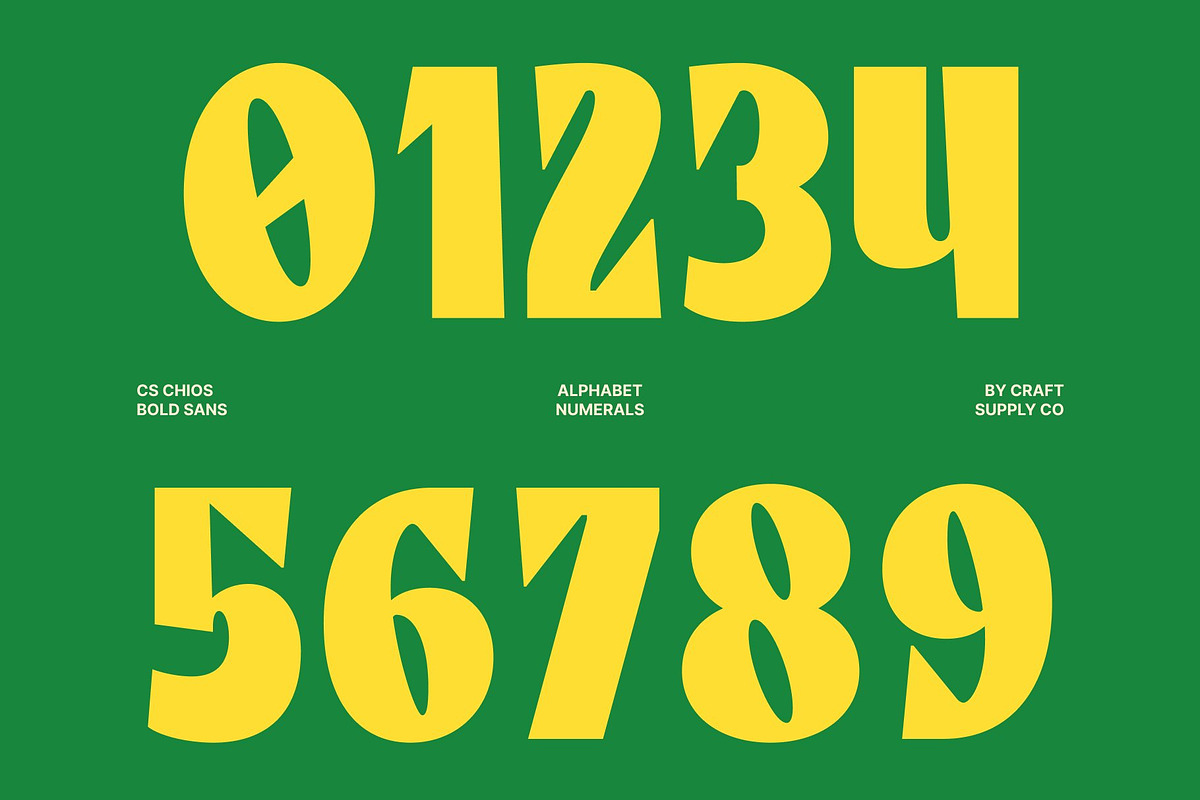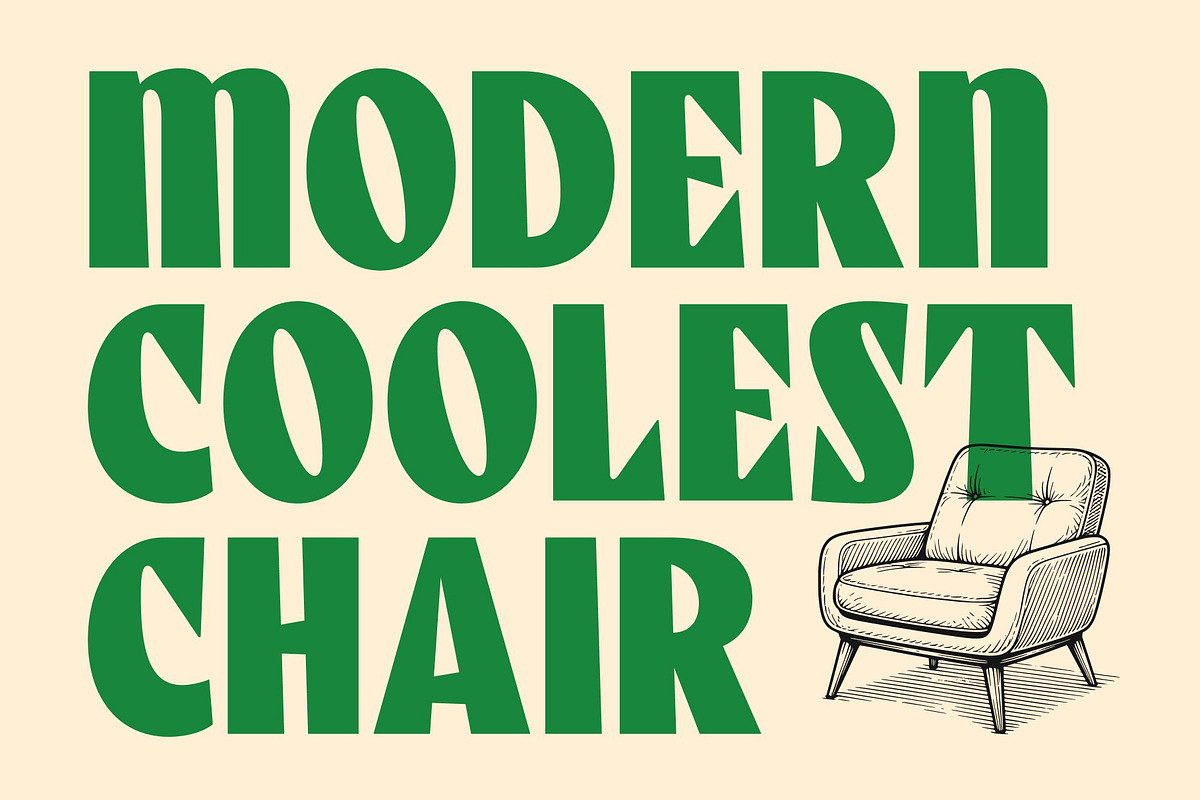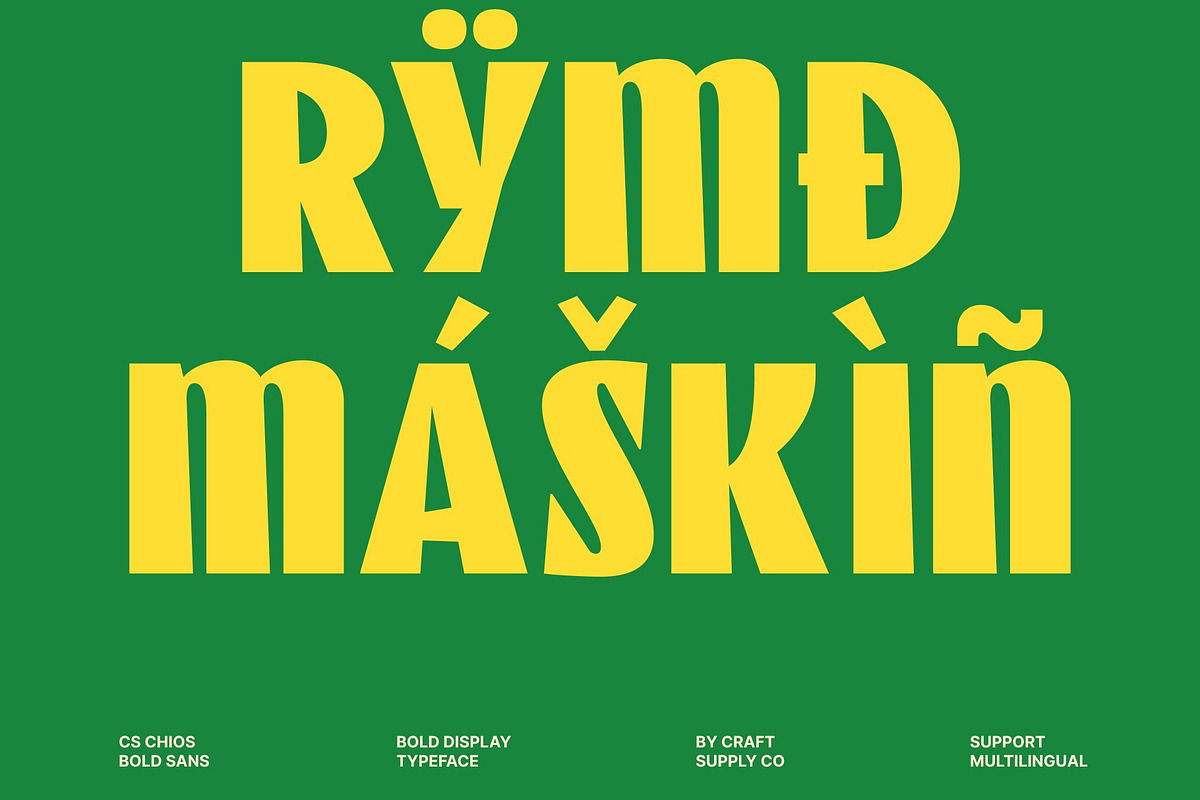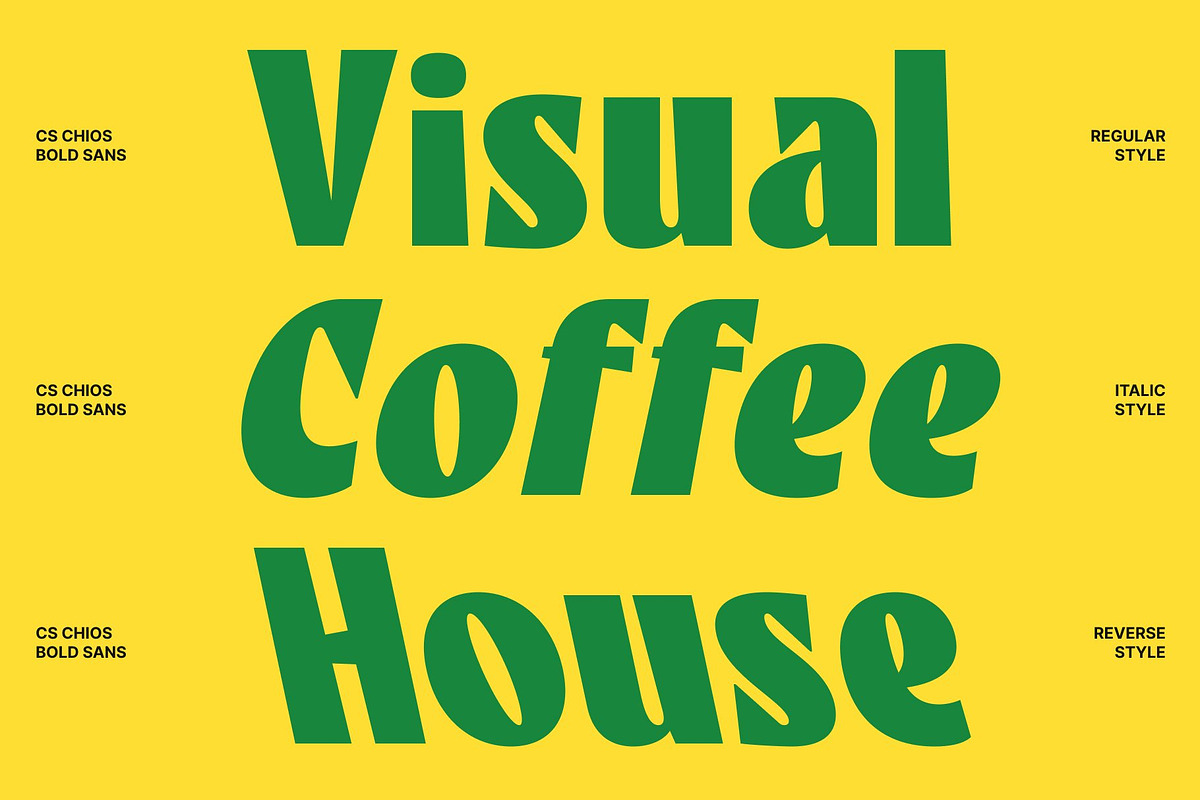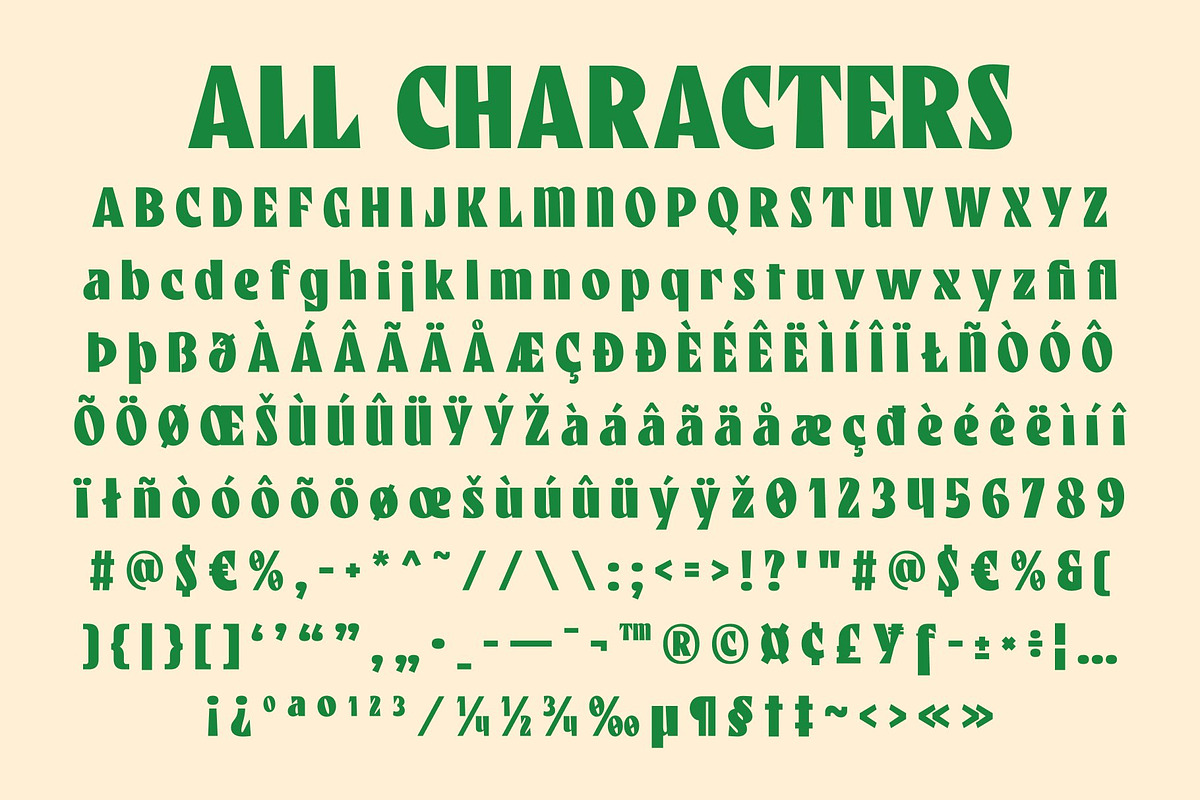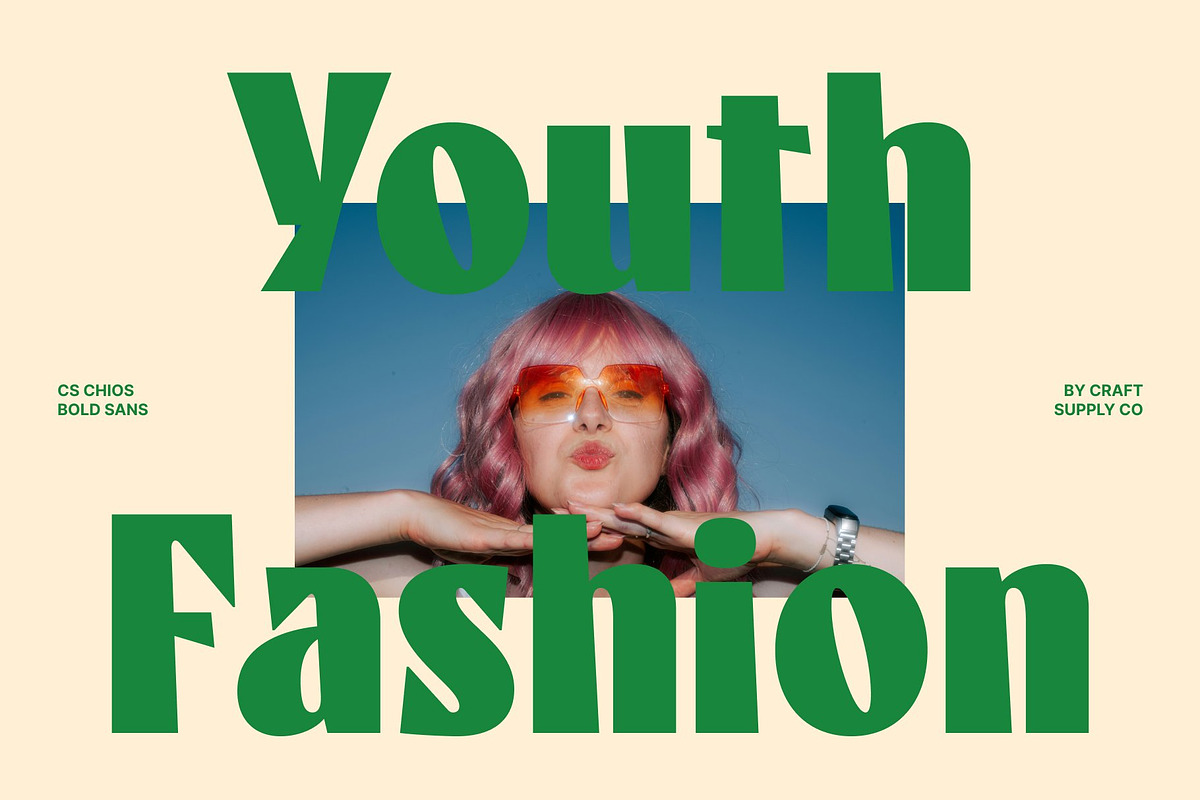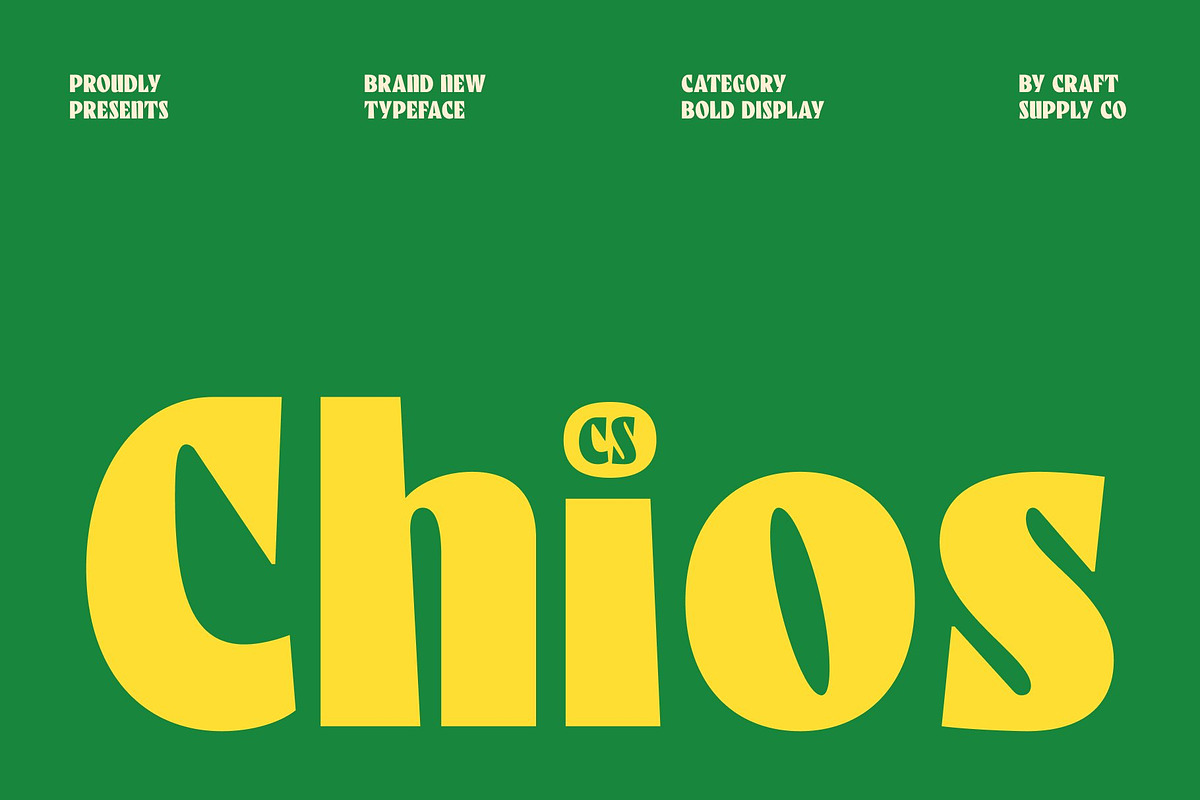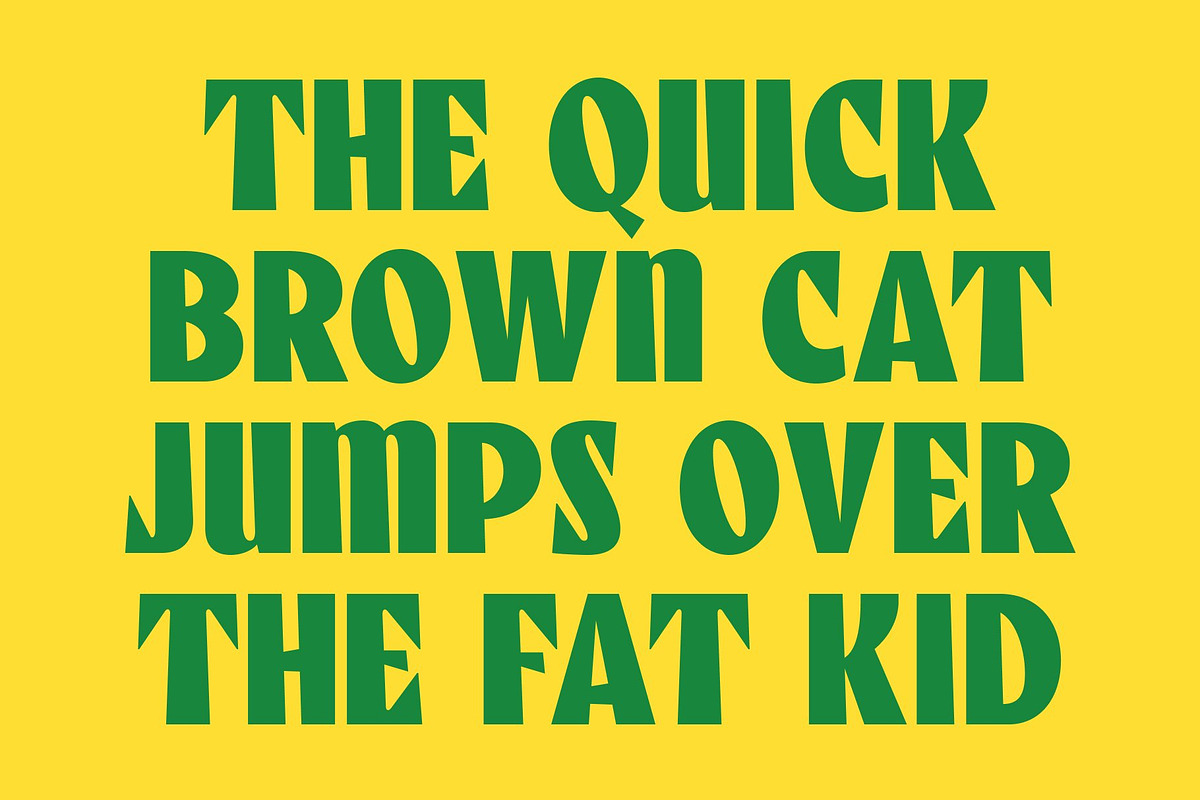
CS Chios – Bold Sans Serif
CS Chios – Bold Sans Serif Font: Where Chunky Strength Meets Playful Modern Style
Chunky Forms with Strong Visual Impact This is a bold sans serif display font designed to make a statement through its chunky letterforms and commanding presence. Built with strong shapes and confident proportions, it delivers exceptional visibility and impact, making it perfect for designs that need to stand out. Its bold construction creates a powerful visual foundation while maintaining a clean and contemporary appearance.
Sharp Angles with Playful Energy This font balances strength with a playful personality. These geometric details add movement, character, and visual excitement, giving the font a lively and engaging feel. The result is a typeface that feels modern, energetic, and approachable while retaining its bold and confident nature.
Modern Design with Creative Versatility This font delivers a typographic identity that feels fresh, memorable, and highly versatile. Its bold forms and playful details make it suitable for a wide range of creative projects, from energetic branding to attention-grabbing promotional materials.
Perfect for Headlines, Posters, and Branding Perfect for headlines, posters, branding projects, advertising campaigns, packaging, social media graphics, merchandise, event promotions, and creative visual identities. Its chunky forms and playful character make it ideal for logos, titles, and display typography that seek to communicate confidence, creativity, and modern energy.
CS Chios Regular
CS Chios Italic
CS Chios Reverse Italic